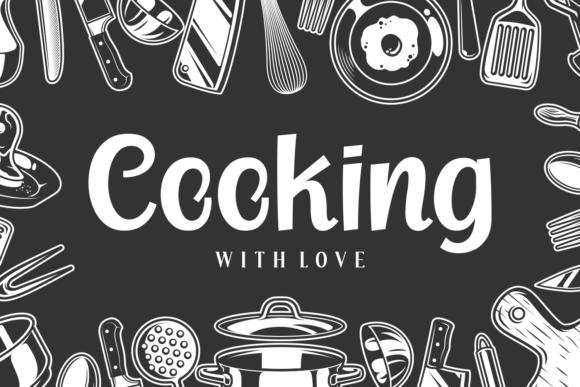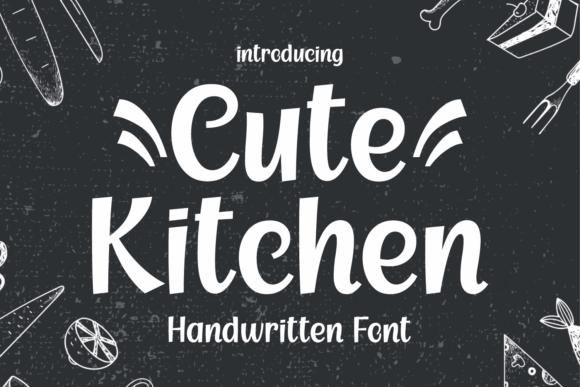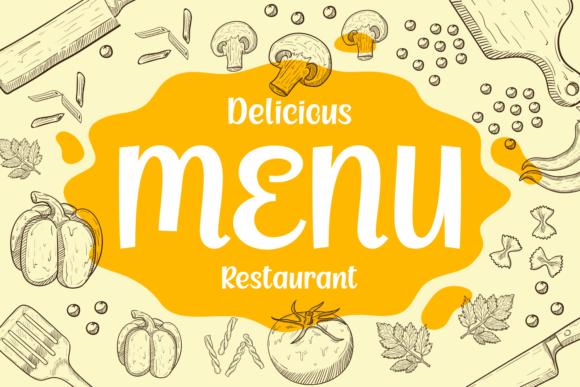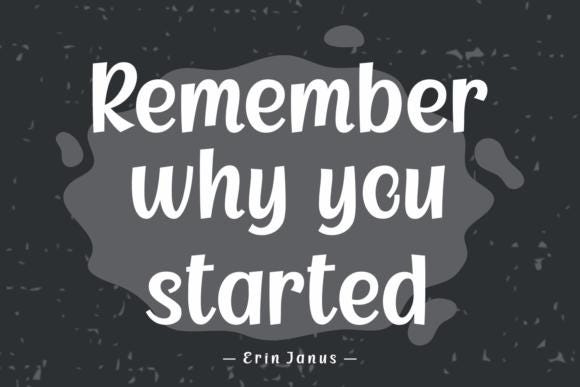
Cute Kitchen Font
Cute Kitchen is an exquisite handwritten font, masterfully designed to become a true favorite. It maintains its classy calligraphic influences while feeling contemporary and fresh. Fall in love with it and bring your projects to the highest levels!